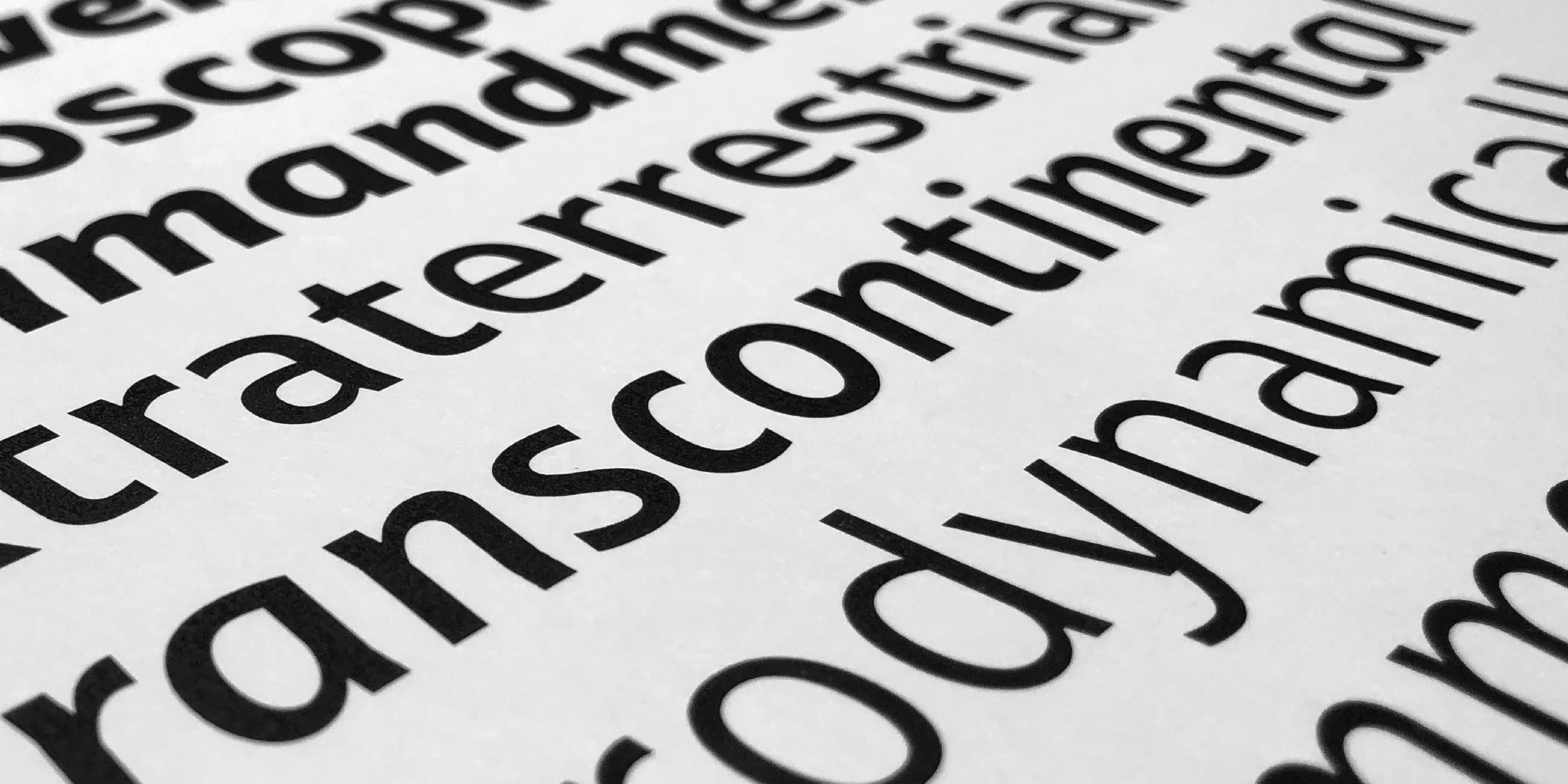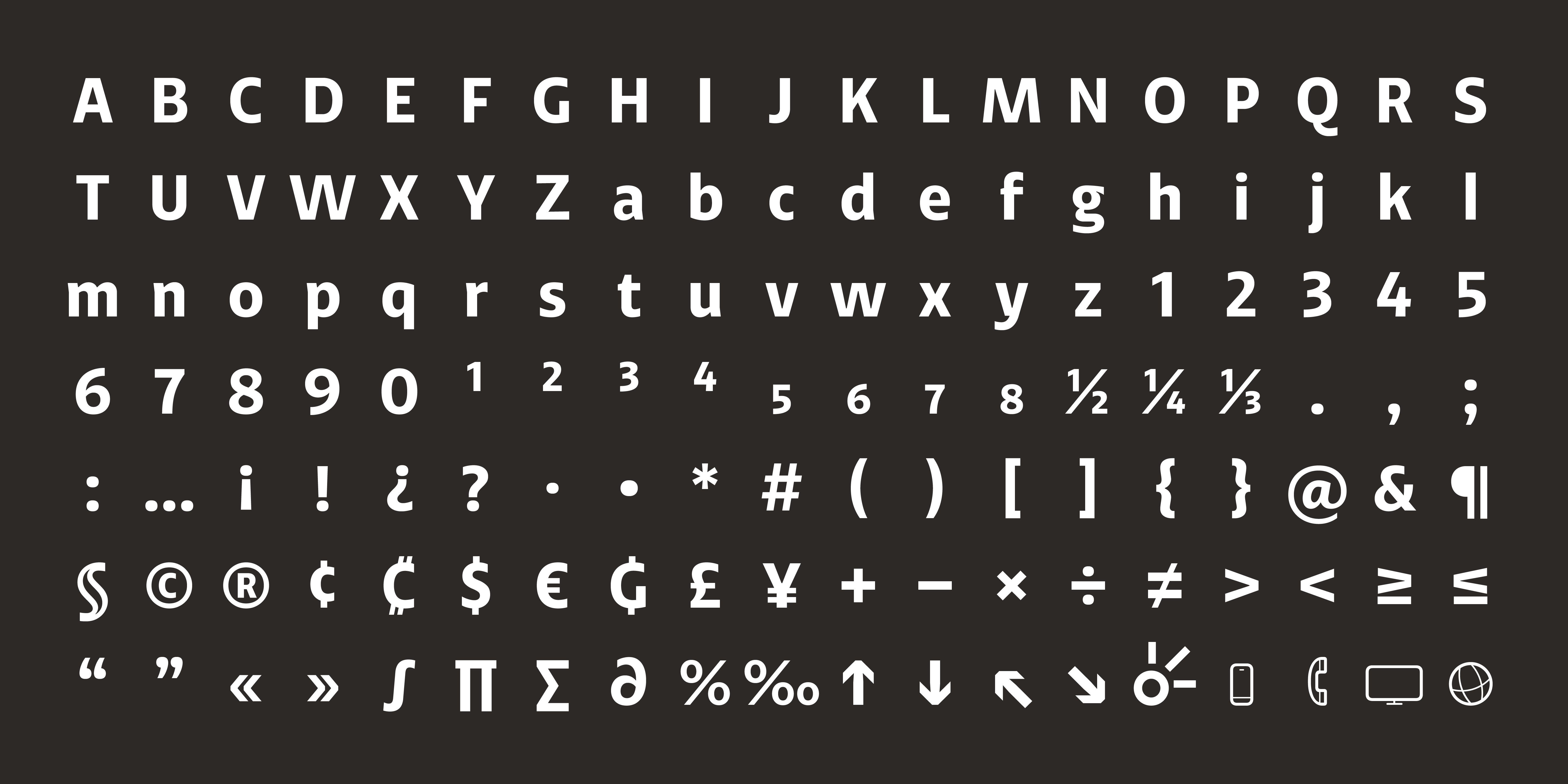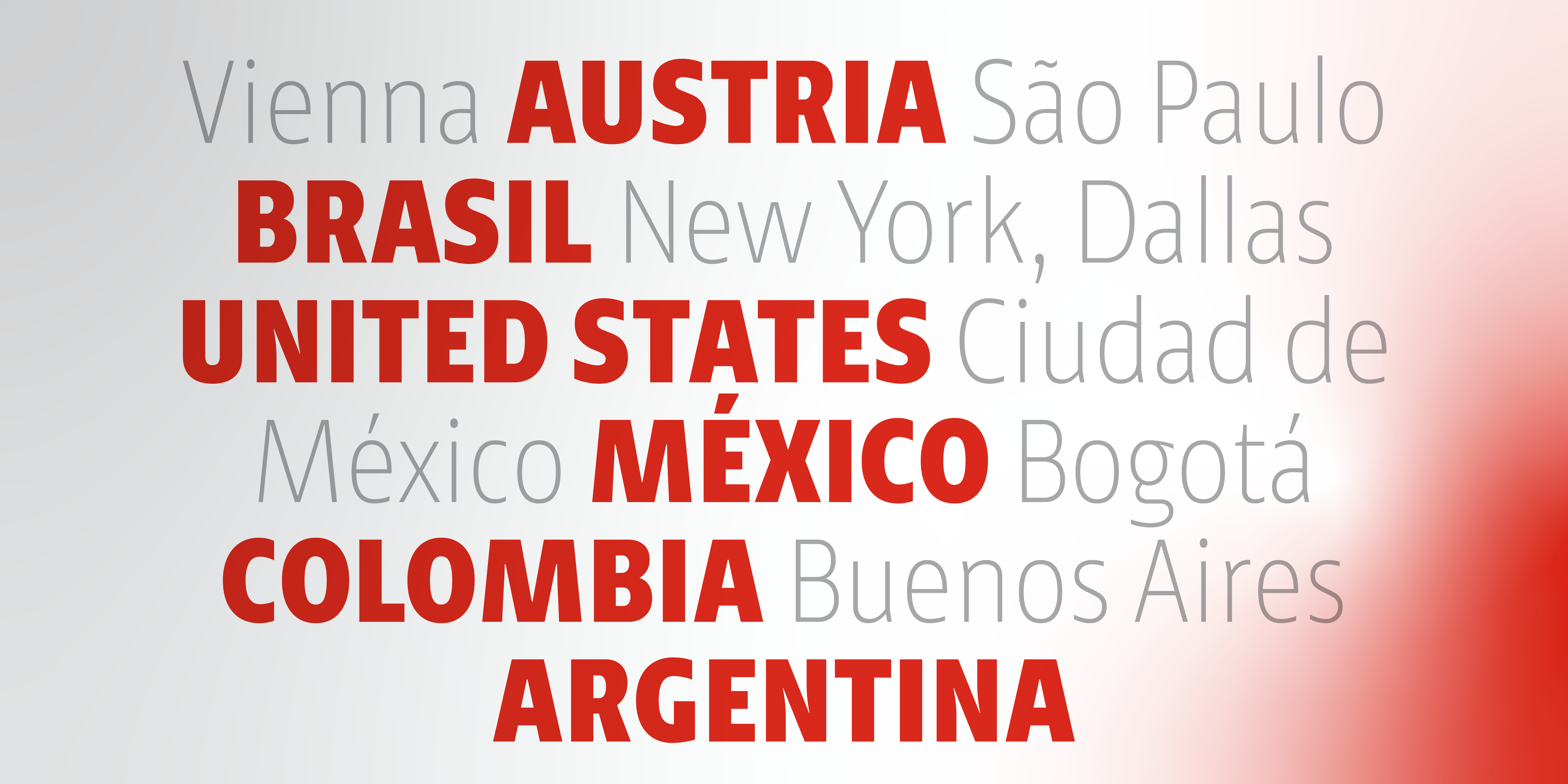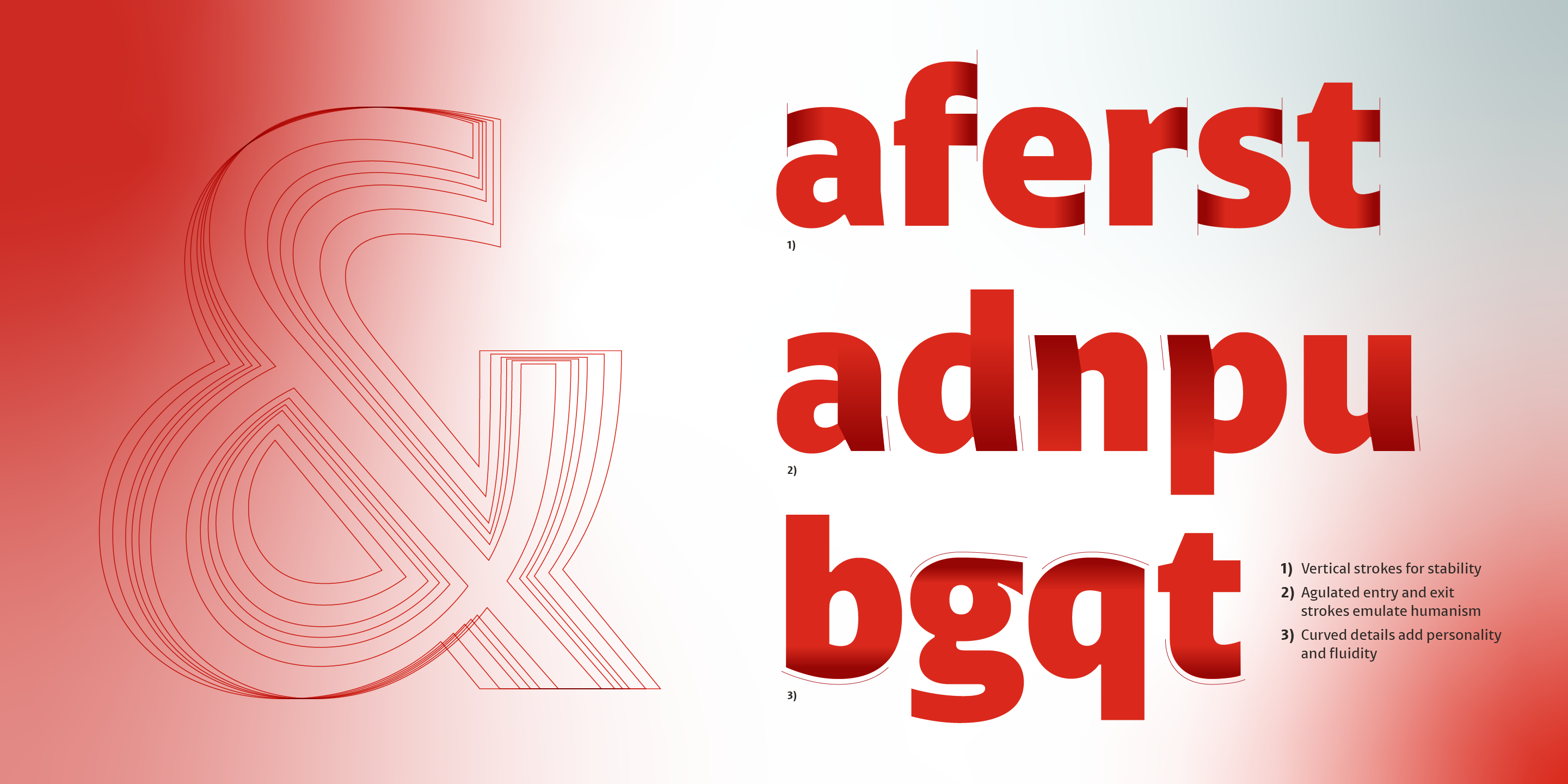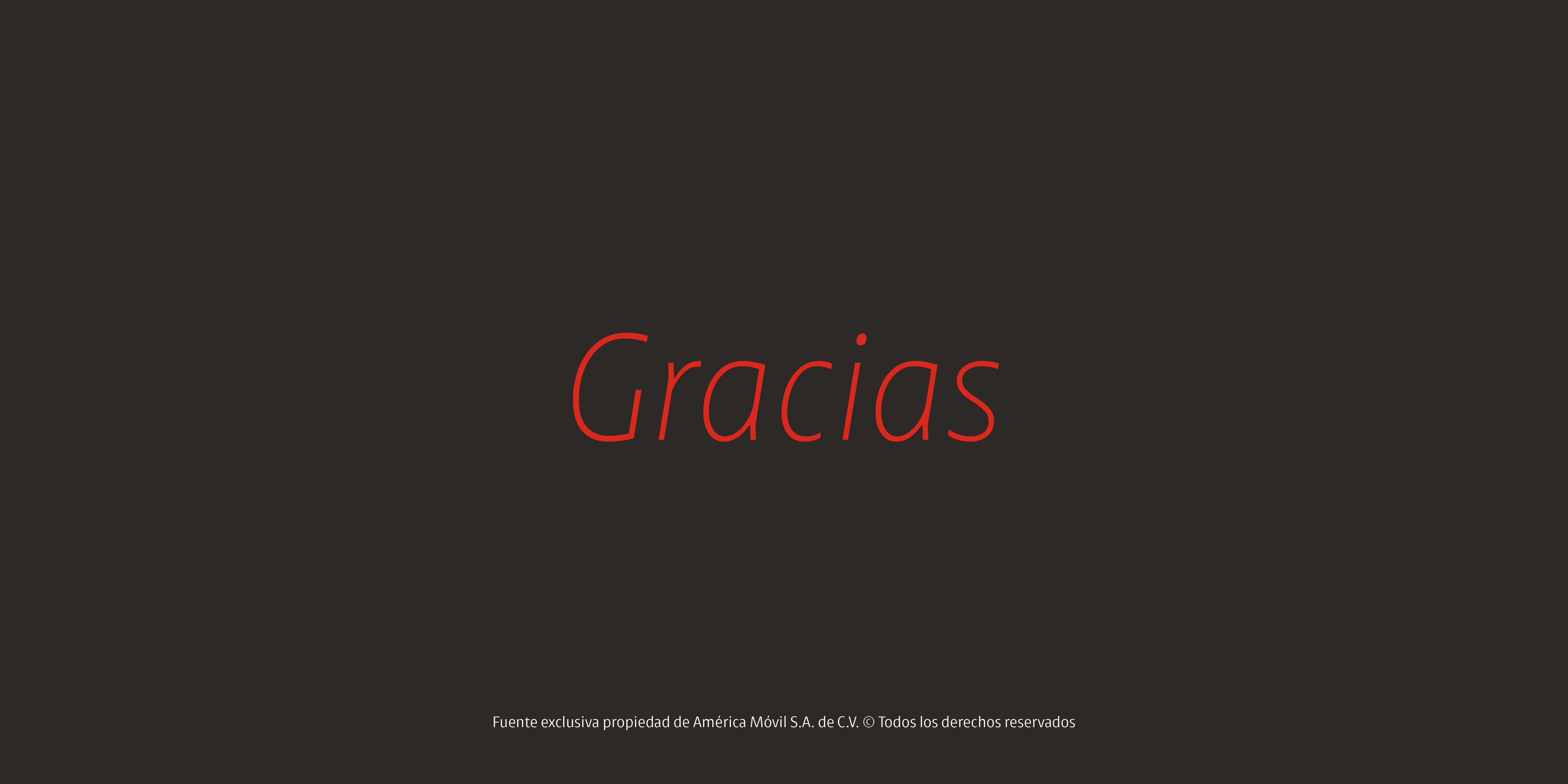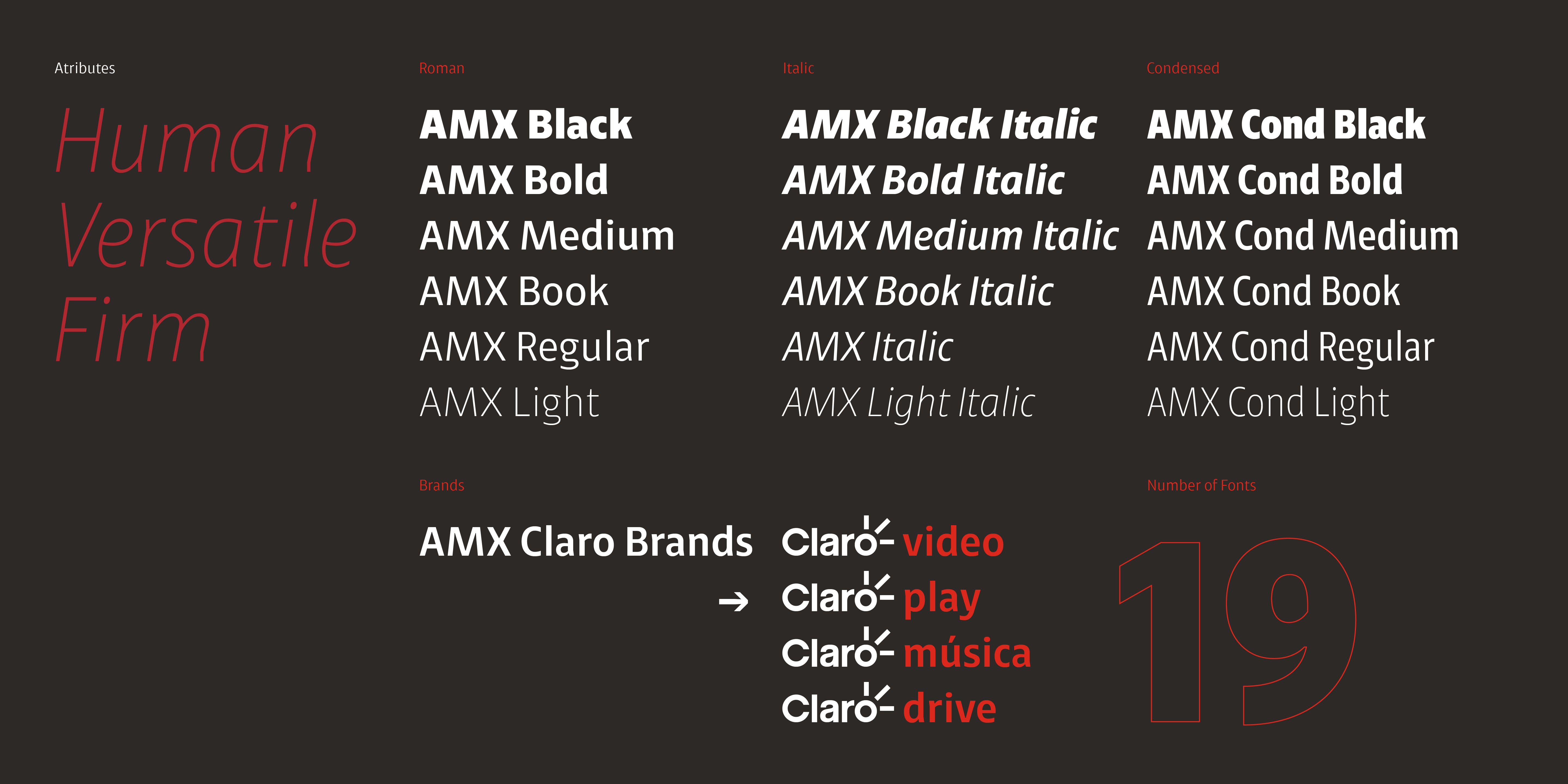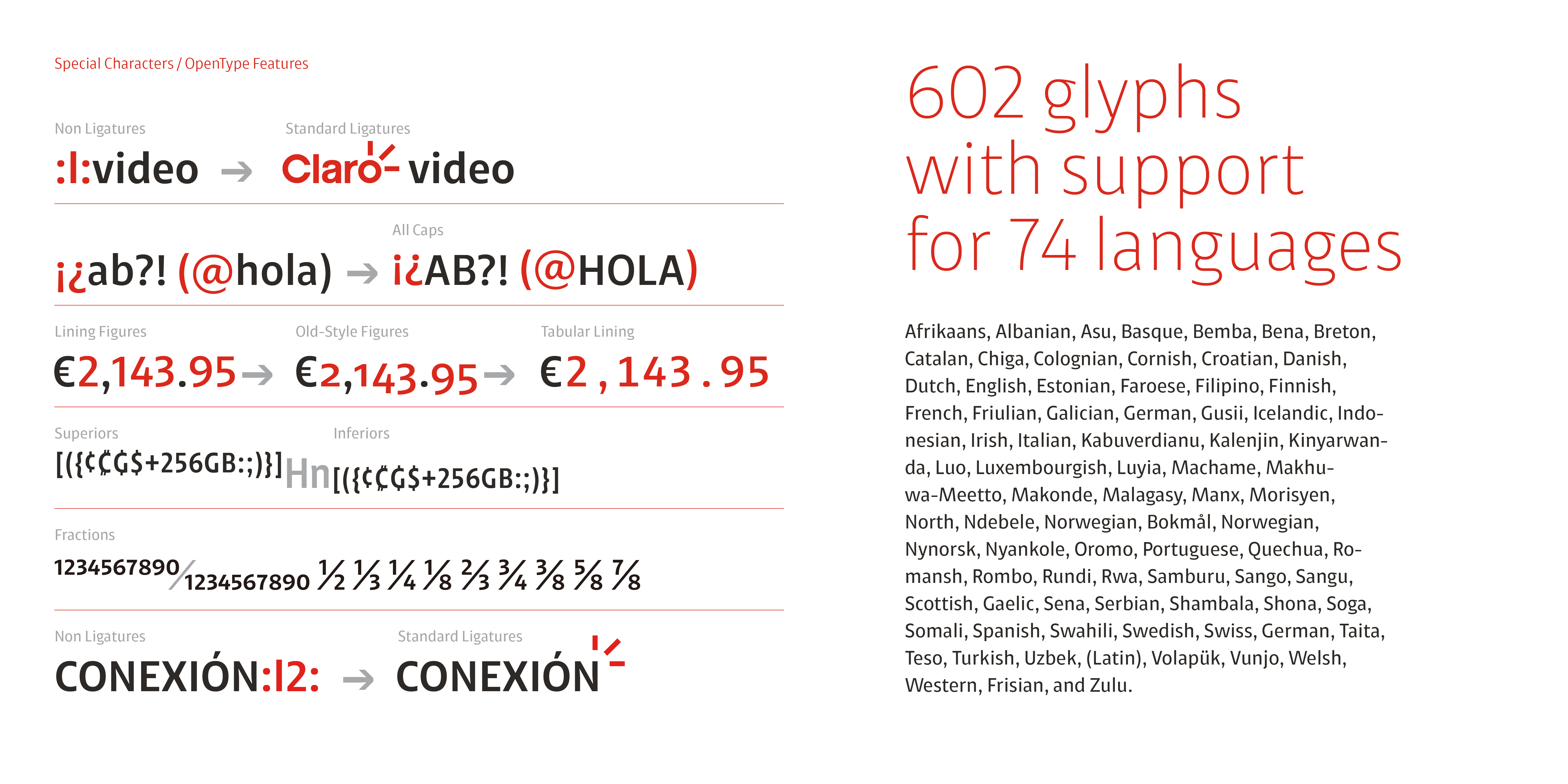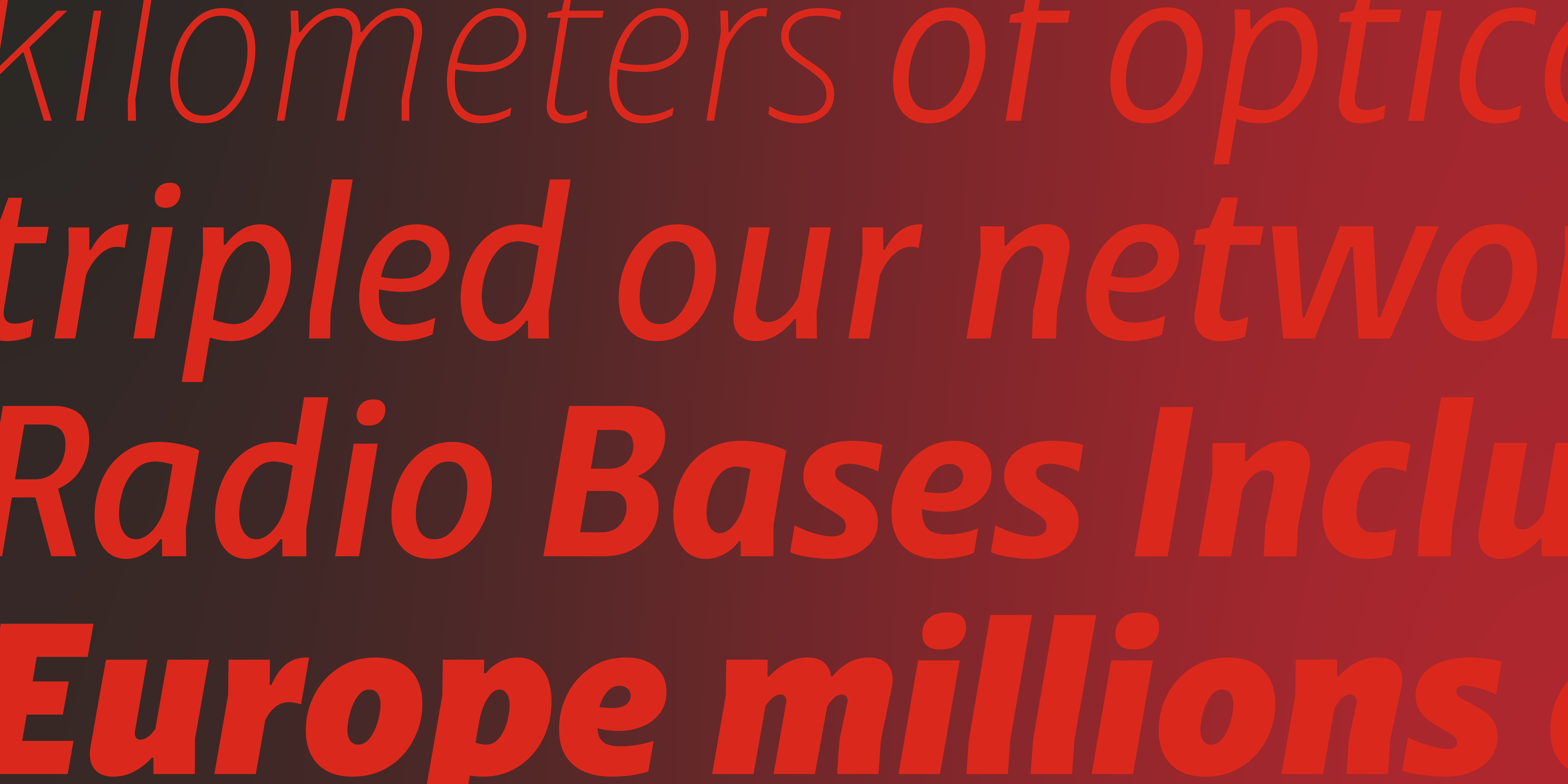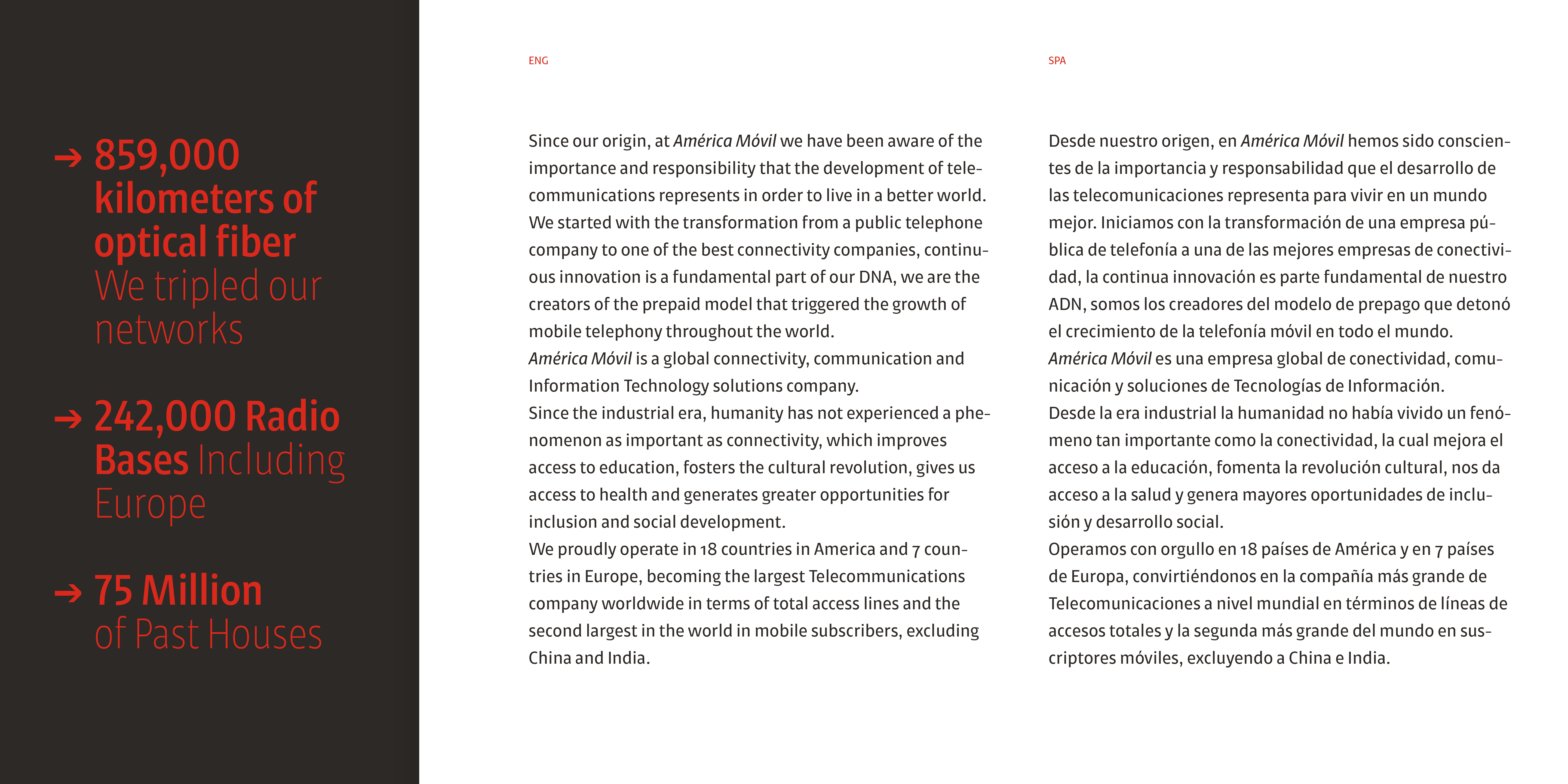
The Santa Marca agency approached us to develop a type system for the Claro brand of its client, América Móvil, a leading telecommunications company with operations in 18 countries in the Americas and seven in Europe.
The request came as a way to reduce the cost of type licenses previously used with the DIN family.
One of the main problems was the poor implementation in most Latin American countries, whose suppliers used different versions of DIN, sometimes incomplete, sometimes with different features. The client was sure that a customized and exclusive typeface would help them solve their homologation problems in their visual identity system, as well as save on licensing costs. So, under the direction of Santa Marca, we began to analyze what this system should look like, how many variables and what technical and formal characteristics would be necessary to solve its correct implementation in the design teams. The conceptual guidelines were three: it had to be human and warm (unlike DIN); it had to be versatile, that is, it had to be adaptable to the Claro logo and coexist well with Roboto, its secondary typography; and finally, it had to convey solidity and firmness, since Claro is a leading brand in telecommunications.
Since its ecosystem would be mostly in digital platforms, we developed manual hinting with the support of Elí Castellanos for better performance in different browsers and digital devices.
The result is a system composed of 6 weight variables in their Roman style plus their respective italics for all their communications. A variant called Claro Brands to compose the logos of the different business lines such as Claro Video, Claro Play, Claro Music, etc., as well as the incorporation of some icons and useful elements, and finally a condensed variant with the same 6 Roman weights to be used in formats such as invoices that require horizontal space saving. In total, 19 fonts make up the system, managed according to the type of users the company has. The result has benefited the company, which has decided to call the typeface AMX instead of simply Claro, as this will allow it to be implemented in new América Móvil brands.